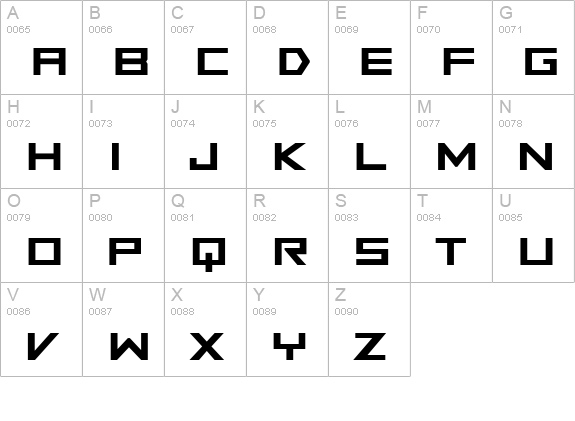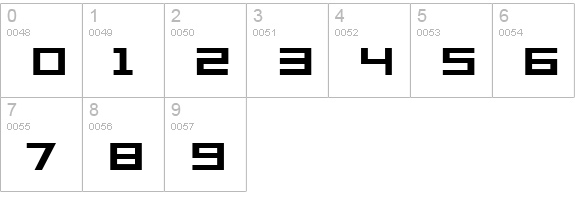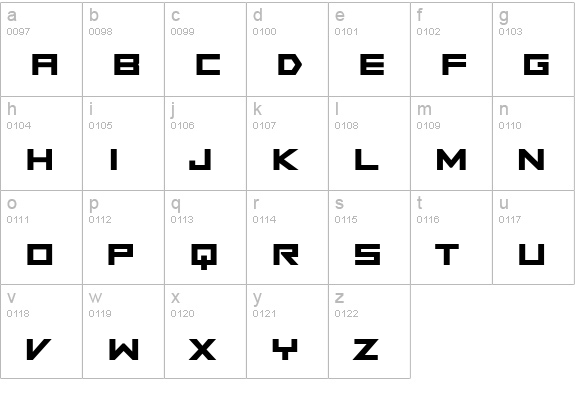
PFTerminalSquare Bold Font Details
PFTerminalSquare Bold is a strong, high-contrast variant in the PFTerminalSquare typeface family \xE2\x80\x94 well suited to headlines, attention-grabbing titles, and strong calls-to-action.
The PFTerminalSquare Bold font is a bold and modern typeface that exudes strength and confidence. With its clean lines and sharp edges, this font is perfect for making a bold statement in your designs. Whether you're creating posters, logos, or headlines, PFTerminalSquare Bold will help your text stand out and grab attention. The best part? PFTerminalSquare Bold is completely free to download at FontsMarket.com. You can easily add this striking font to your collection without any cost. Don't miss out on the opportunity to enhance your designs with this powerful and versatile typeface. Download PFTerminalSquare Bold today and take your projects to the next level!